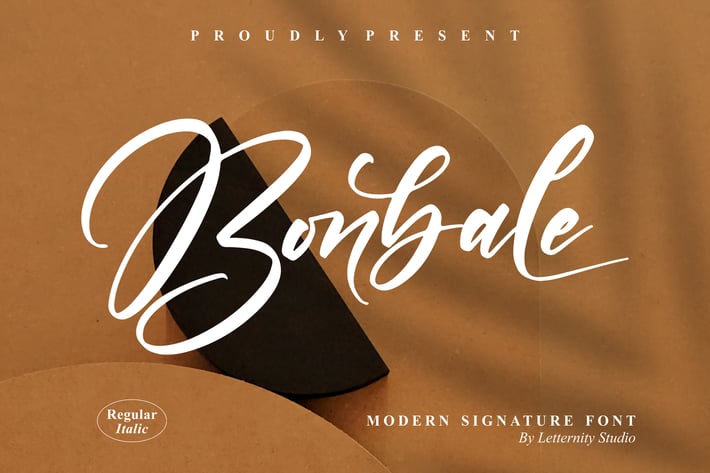
Bonbale Modern Signature Font
Bonbale is a contemporary signature script that blends bold contrast with airy, sweeping strokes. Its flowing rhythm, refined curves, and high-fashion flair make headlines feel personal and polished—perfect for brands that want elegance with momentum. Use the Regular & Italic pair to build effortless type hierarchies for logos, packaging, and social graphics.
+ Regular & Italic styles for easy pairing
+ OpenType ligatures & alternates for natural handwriting flow
+ Beginning/ending swashes and underlines for dramatic signatures
+ Clean curves with tuned kerning for print-ready results
+ Signature logos & personal branding
+ Wedding suites and event stationery
+ Beauty, fashion & lifestyle packaging
+ Social media posts, reels covers & stories
+ Editorial spreads & magazine mastheads
+ Business cards, thank-you notes & swing tags
+ Photo watermarks & moodboards
Bonbale where signatures become statements.